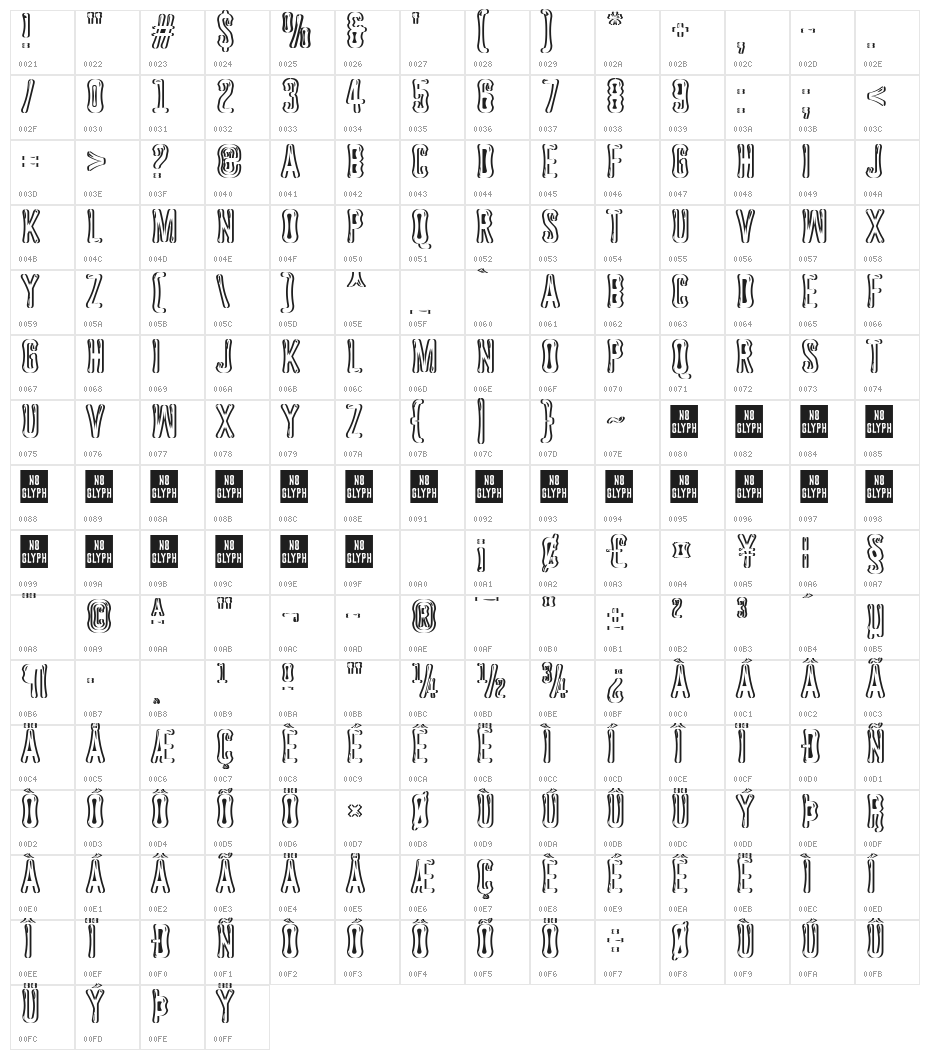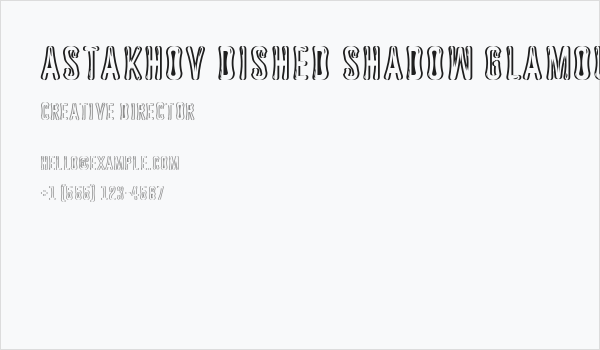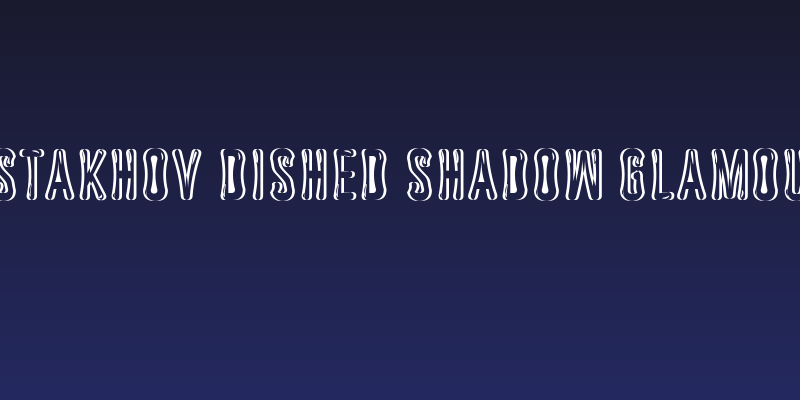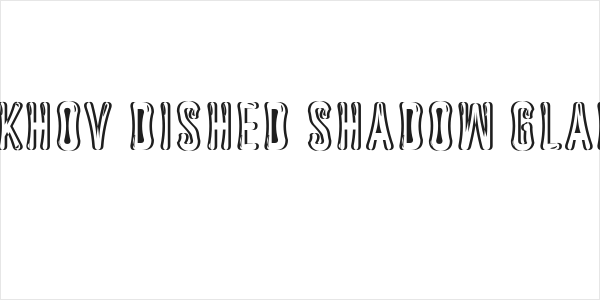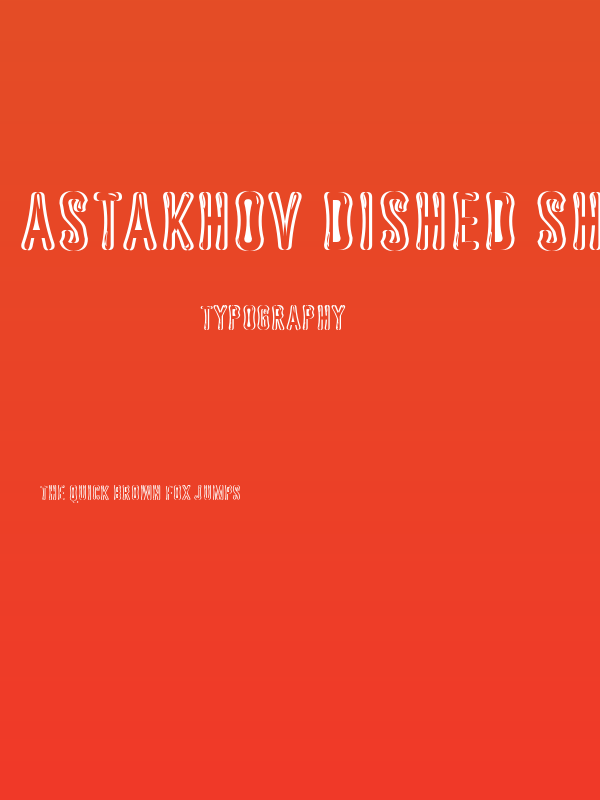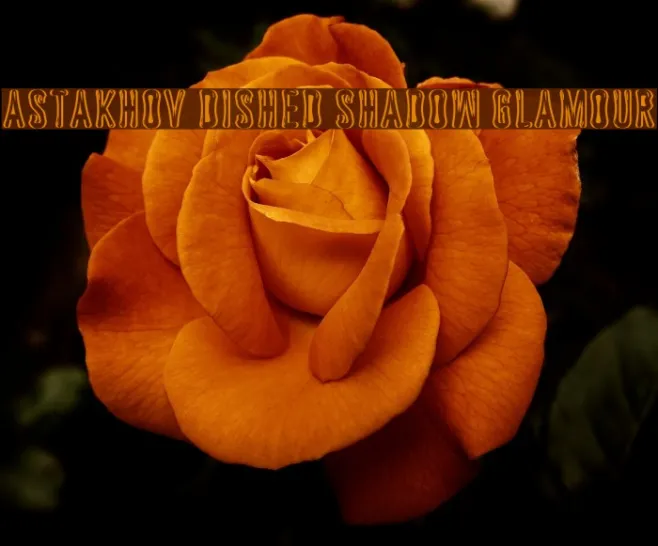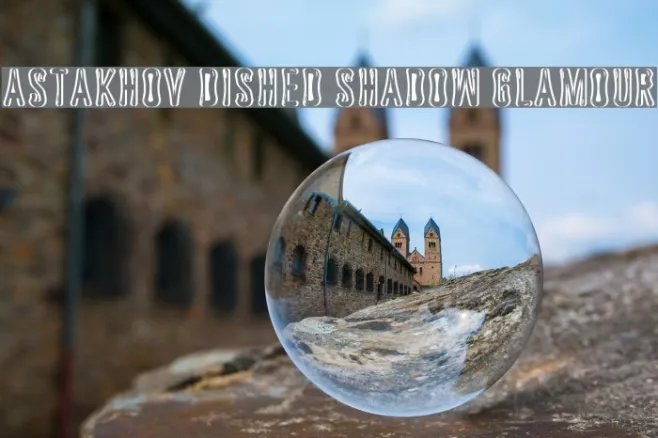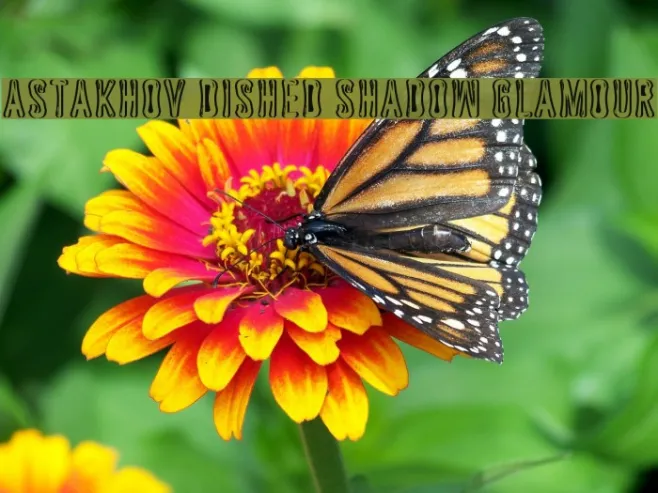
Astakhov Dished Shadow Glamour Font
Astakhov Dished Shadow Glamour Description
This font features a bold and decorative style with a distinct shadow effect that gives it a three-dimensional appearance. The characters are uppercase and lowercase letters, numbers, and a selection of special characters. Each letter has a unique, artistic flair with curved lines and a playful, glamorous aesthetic. The shadowing adds depth, making it suitable for eye-catching designs. The overall look is both modern and vintage, combining classic elements with a contemporary twist.